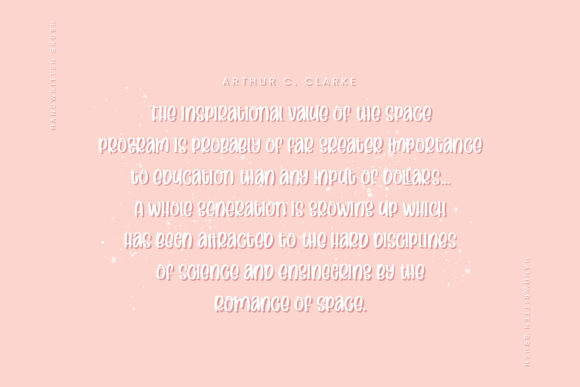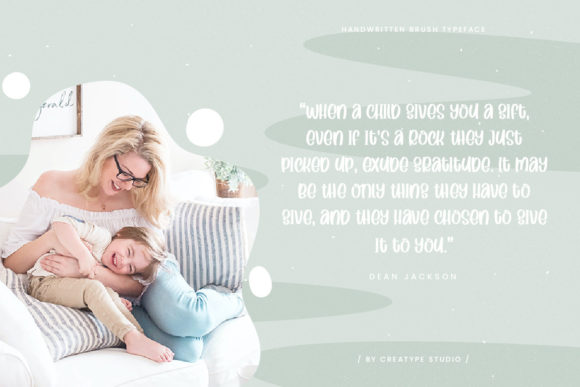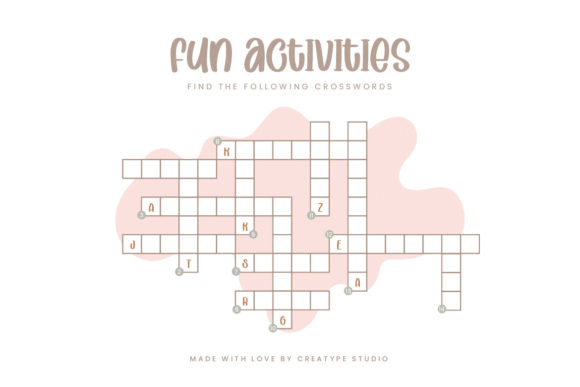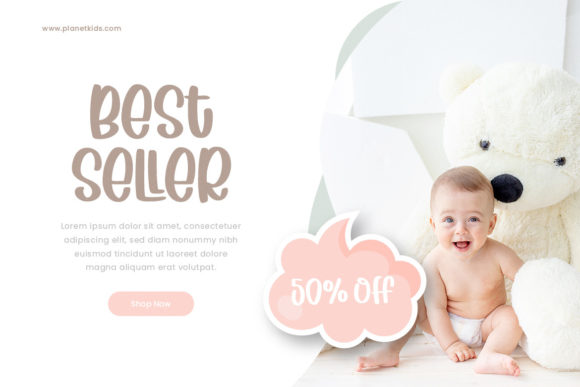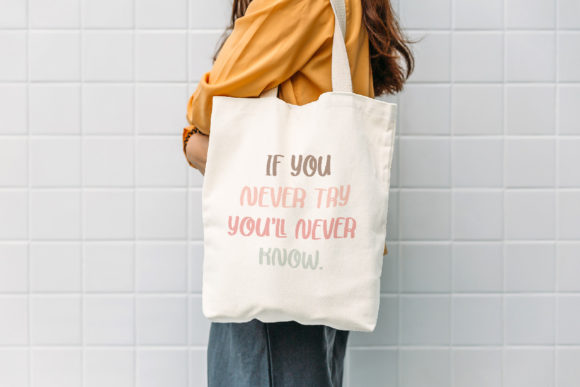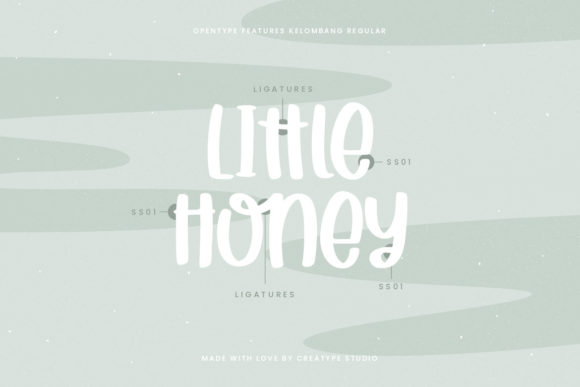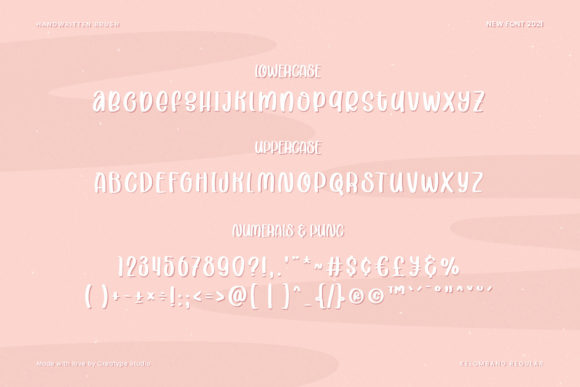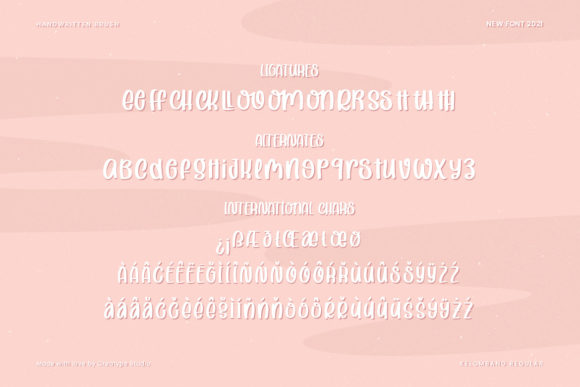
Kelombang Font
About Kelombang Font
Kelombang is a handwritten font made with love, resulting in a font that looks so cute, fresh, and appealing. With its adorable shape, this font is perfect for all your products that require a cheerful feel. This font is PUA encoded which means you can access all of the glyphs and swashes with ease!